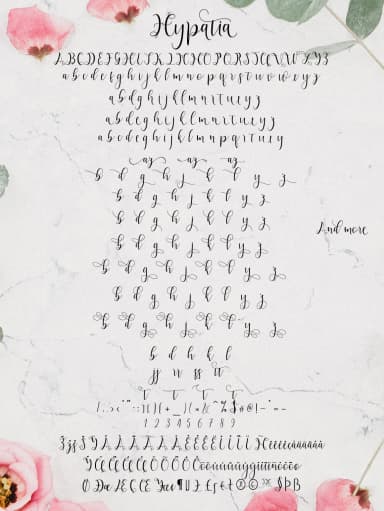
Hypatia Script by Bexx Type is a modern calligraphy font that brings refined elegance to contemporary design practice. Built with dramatic high-contrast strokes that create visual rhythm and dynamic movement, this handwritten script captures the authentic charm of hand-lettered letterforms without sacrificing legibility or practical usability. The meticulous construction of every character demonstrates thoughtful typographic design, making Hypatia Script remarkably versatile for use as either a striking display typeface or a graceful accent within carefully composed mixed-font layouts.
This font excels when designing wedding invitation suites that feel intimate and personally curated, creating greeting card typography that captures genuine attention on retail shelves, and crafting elegant monogram designs for distinctive boutique brand identities. Whether you're developing anniversary and special occasion stationery packages, constructing eye-catching social media post headers for platforms like Instagram, or building handmade aesthetic branding systems, Hypatia Script delivers the sophisticated visual character and distinctive personality your creative work deserves. The included italic variant significantly expands your design toolkit, enabling you to layer contrasting letterforms and introduce dimensional depth throughout your typographic compositions and layouts.
- Elegant, Flowing, Hypatia Script
Hypatia Font is a script font that shines as a display or heading face. Pair it with a clean sans-serif or serif font for body text β the contrast creates a clear hierarchy while the two styles stay balanced and easy to read.
Hypatia Font
by Bexx Type